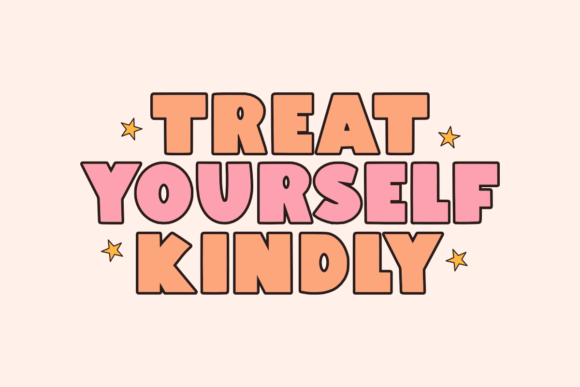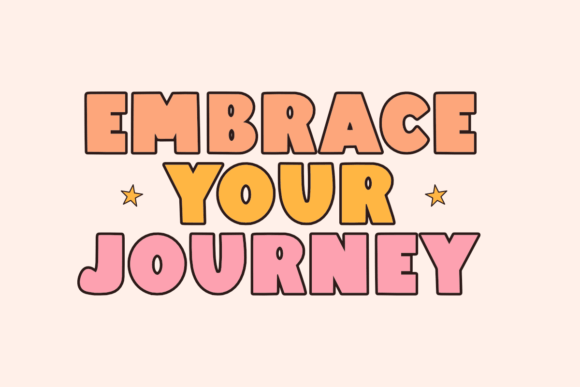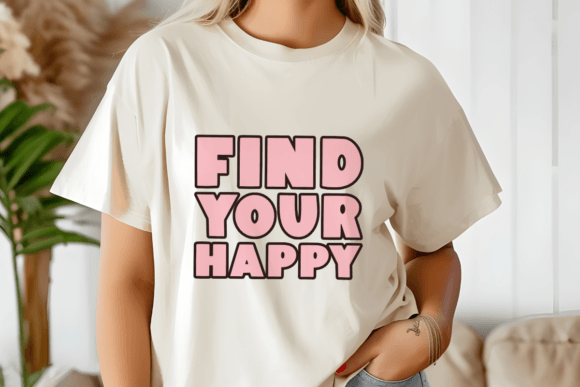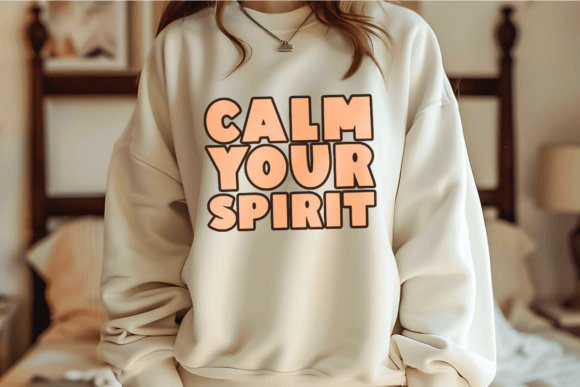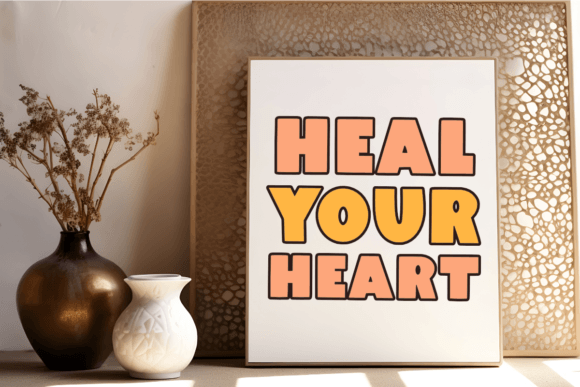
Introduction to Funky Festive Font
As a designer, have you ever been in the midst of a creative project and found yourself stuck for the perfect font? Perhaps it’s a Christmas card, a holiday invitation, or even a festive t-shirt design. You want something that captures the essence of the season, something fun and quirky that screams ‘joy’ and ‘cheer.’ That’s where the Funky Festive Font comes in – a delightful, high-quality design resource that’s sure to add a touch of festive flair to any project.
Key Features of Funky Festive Font
- Unique, hand-drawn design for a fun and creative project
- Designed with a funky, festive feel, perfect for adding a touch of personality to your designs
Honest Review: Funky Festive Font
I recently had the chance to work with the Funky Festive Font for a creative project, and I must say it was a delightful experience. The font is perfect for adding a touch of whimsy to your designs, making it ideal for festive and seasonal projects.
- ⚠️ Not as versatile as other fonts in terms of design styles, making it less suitable for general use.
Overall, I was impressed with the Funky Festive Font’s potential for adding a festive touch to my designs. While it has some limitations, it’s still a valuable design resource for those looking to create high-quality, free downloads for their creative projects.
Tips for Getting the Most Out of Funky Festive Font
Use the Funky Festive Font in conjunction with a high-quality design resource to create a unique and eye-catching design. Experiment with different font sizes, colors, and styles to add depth and visual interest to your design. You can also use the Funky Festive Font as a free download to add a creative touch to your project.
The Funky Festive Font is perfect for creative projects such as party invitations, social media graphics, and holiday cards. It’s also a great design resource for bloggers, marketers, and small business owners looking to add a touch of personality to their brand.